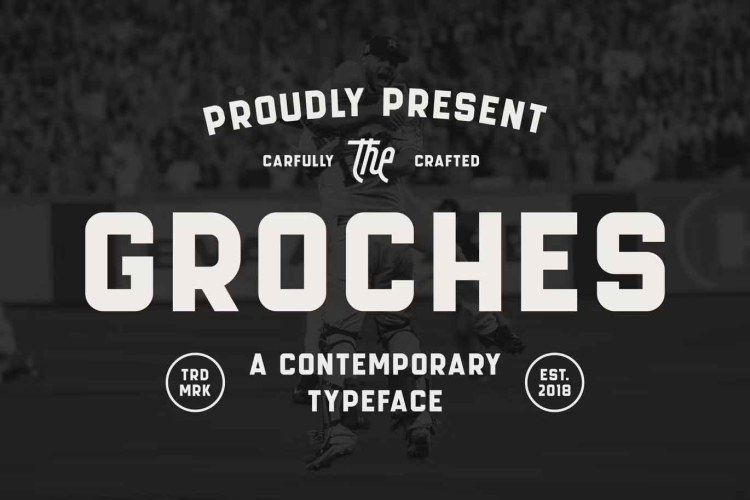
GROCHES Font
GROCHES (Clean Version) a contemporary typeface.The typeface can span from a refined vintage feel to an industrial futuristic vibe. Forged from geometric and technical s…
GROCHES (Clean Version)
a contemporary typeface.The typeface can span from a refined vintage feel to an industrial futuristic vibe. Forged from geometric and technical styles with wide characters, make this font type so strong and bold.
Comes in two different styles, clean and rusty it brings a vintage touch to any creative project and elevates contemporary editorial layouts. Groches very suitable to use for headlines, sign, display, and logotype, or take it for a spin with short-form body copy.
Where GROCHES Font works best
GROCHES Font stays legible at small sizes, which makes it a strong choice for navigation, buttons and dashboards in web design and app interfaces.
Clean sans serifs like GROCHES Font are the default language of SaaS, fintech and product branding.
What is GROCHES Font good for?
GROCHES Font is a Sans Serif Fonts typeface tagged Bold, Clean, Contemporary, Modern. It works well for headlines, logos, posters, social media graphics and branding projects that need a distinctive sans serif fonts look.